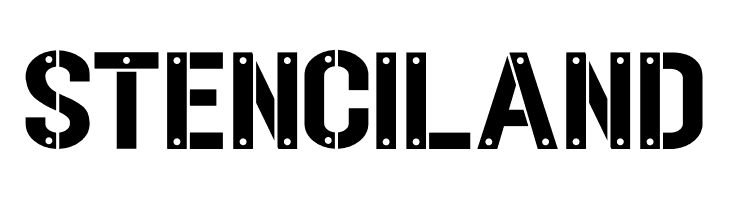
A bold, stencil-style font with geometric shapes and sharp angles.
A bold, stencil-like font with a military-inspired design.
A bold, stencil-style font with geometric shapes and high contrast.
A bold, industrial stencil font with geometric shapes and high legibility.
A bold, industrial stencil-style font with geometric shapes and cut-out sections.